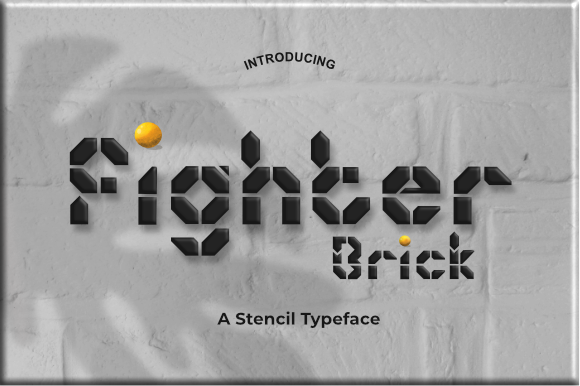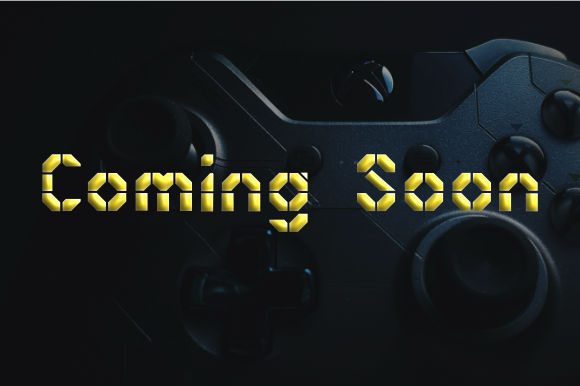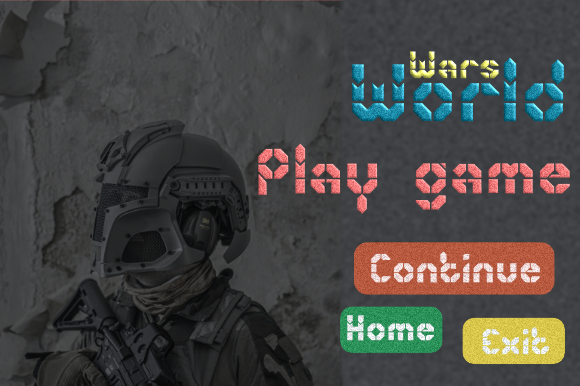
Fighter Brick Font: Elevate Your Designs with a Modern and Robotic Display Font
In the world of design, typography plays a crucial role in conveying messages, expressing creativity, and capturing attention. For designers and crafters looking to add a bold and fun touch to their projects, the Fighter Brick Font is an excellent choice. This modern and robotic display font is designed to make each of your designs stand out, and in this article, we’ll explore its features, benefits, and uses.
What is Fighter Brick Font?
Fighter Brick Font is a contemporary and edgy display font that exudes a sense of strength and playfulness. Its unique design combines the futuristic feel of robotic fonts with the ruggedness of brick textures, creating a distinctive and eye-catching visual effect. This font is perfect for designers who want to add a bold and modern twist to their projects.
Key Features of Fighter Brick Font
- Modern and Robotic Design: Fighter Brick Font boasts a sleek and futuristic design that’s perfect for creating modern and edgy designs.
- Bold and Fun: This font is designed to make a statement, with bold lines and a playful texture that adds a touch of whimsy to any design.
- High-Quality Typography: Fighter Brick Font features crisp and clean typography, making it perfect for use in a variety of design applications, from digital graphics to print materials.
- Versatile: This font can be used in a range of design projects, from logos and branding to posters, flyers, and social media graphics.
Benefits of Using Fighter Brick Font
So, why choose Fighter Brick Font for your design projects? Here are just a few benefits of using this amazing font:
- Stand Out from the Crowd: With Fighter Brick Font, you can create designs that are truly unique and attention-grabbing.
- Express Your Creativity: This font offers a wide range of design possibilities, allowing you to express your creativity and bring your ideas to life.
- Save Time and Effort: Fighter Brick Font is easy to use and customize, saving you time and effort in the design process.
- Perfect for DIY Projects: Whether you’re a professional designer or a crafty DIY enthusiast, Fighter Brick Font is perfect for a range of projects, from handmade cards to craft tutorials.
Uses of Fighter Brick Font
Fighter Brick Font is a versatile font that can be used in a variety of design applications, including:
- Logo Design: Create bold and memorable logos that make a statement.
- Social Media Graphics: Use Fighter Brick Font to create eye-catching social media graphics that grab attention.
- Posters and Flyers: Design bold and effective posters and flyers that showcase your message.
- Branding and Identity: Use Fighter Brick Font to create a consistent brand identity that stands out.
- Crafting and DIY Projects: Add a touch of personality to your handmade cards, craft tutorials, and other DIY projects.
In conclusion, Fighter Brick Font is an amazing modern and robotic display font that’s perfect for designers and crafters looking to add a bold and fun touch to their projects. With its unique design, versatility, and ease of use, this font is sure to become a favorite in your design arsenal. So why wait? Download Fighter Brick Font today and start creating designs that stand out from the crowd!
Whether you’re a professional designer or a crafty DIY enthusiast, Fighter Brick Font is the perfect choice for anyone looking to elevate their designs and add a touch of personality to their projects. So go ahead, get creative, and make your designs shine with Fighter Brick Font!